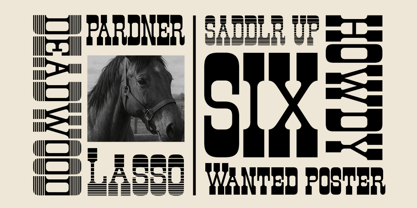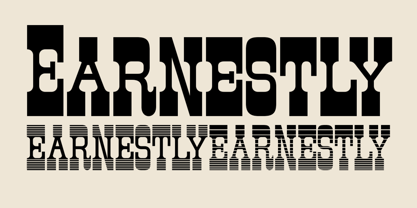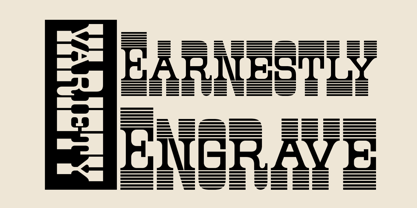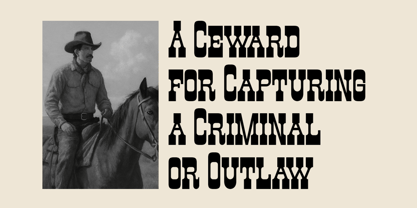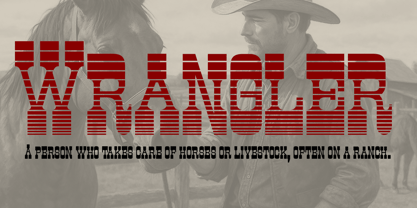
Earnestly
by Artisan Studio
The Earnestly Font Family was designed by Roiyani Teungku and published by Artisan Studio. Earnestly contains 3 styles and family package options. More about this family
Earnestly is a perfectly balanced slab serif font familiar to Western styles. With Earnestly, designers can use this font for a variety of purposes, creating elegant and classic designs. It's worth noting that Earnestly is a slab serif font family that differs from other slab serif fonts in its expressiveness. Earnestly has three distinct styles, but the letterforms remain the same across all three.
Earnestly is a variation characterized by its cool-looking flexibility in the glyph character section.
Designers: Roiyani Teungku
Foundry: Artisan Studio